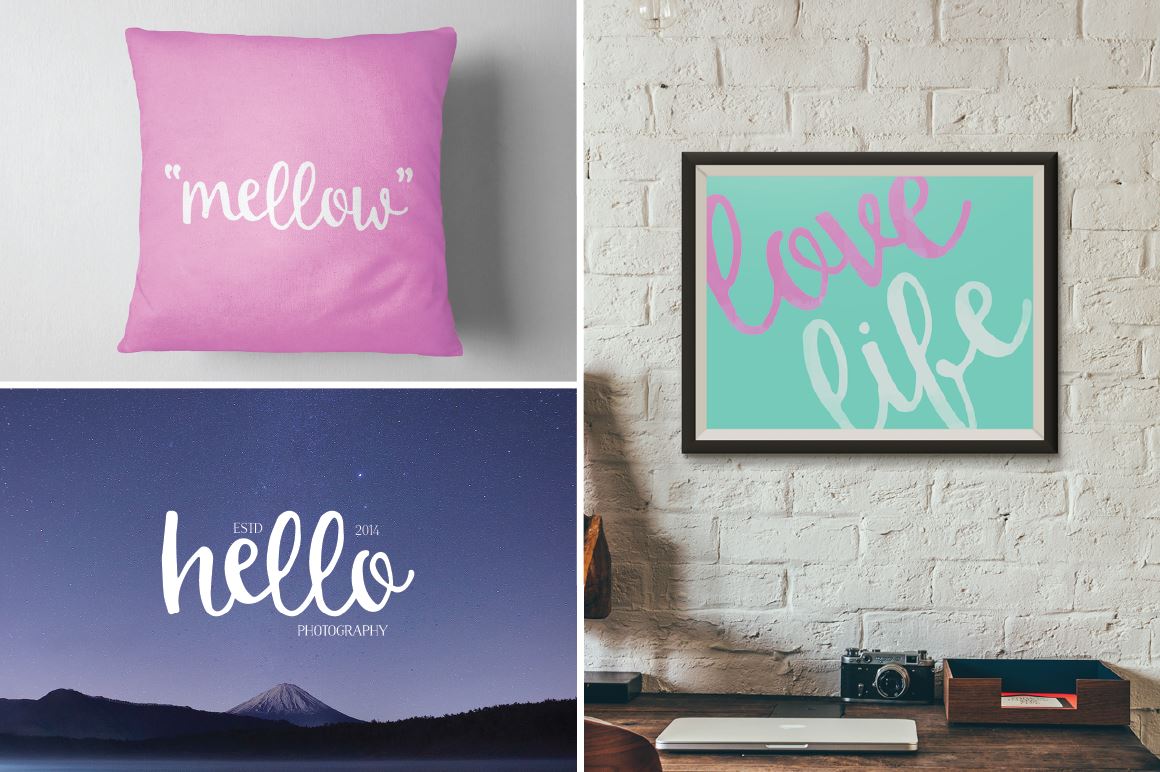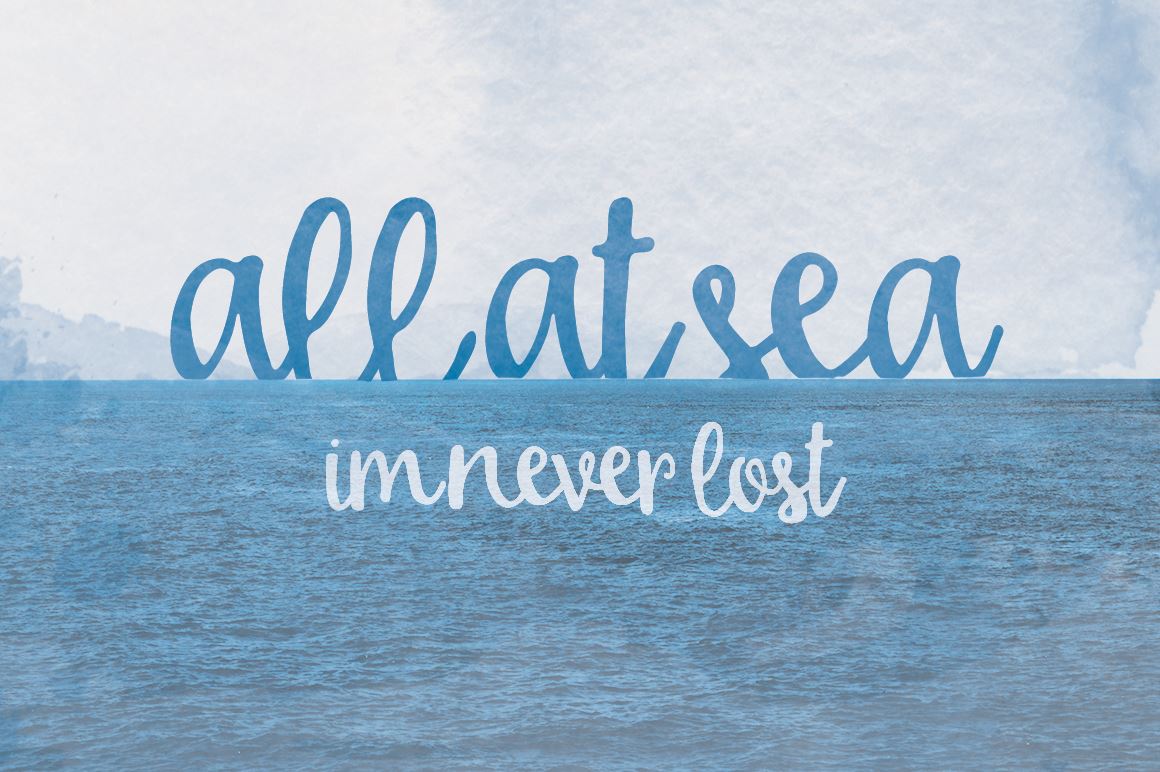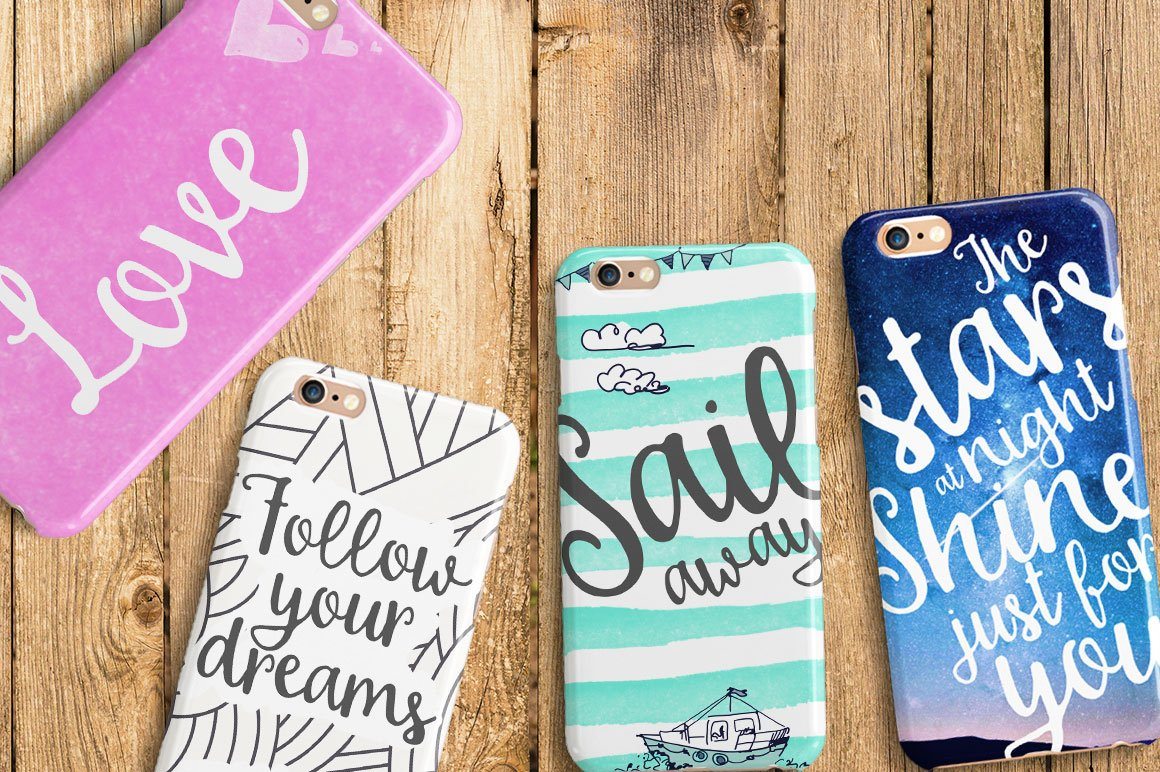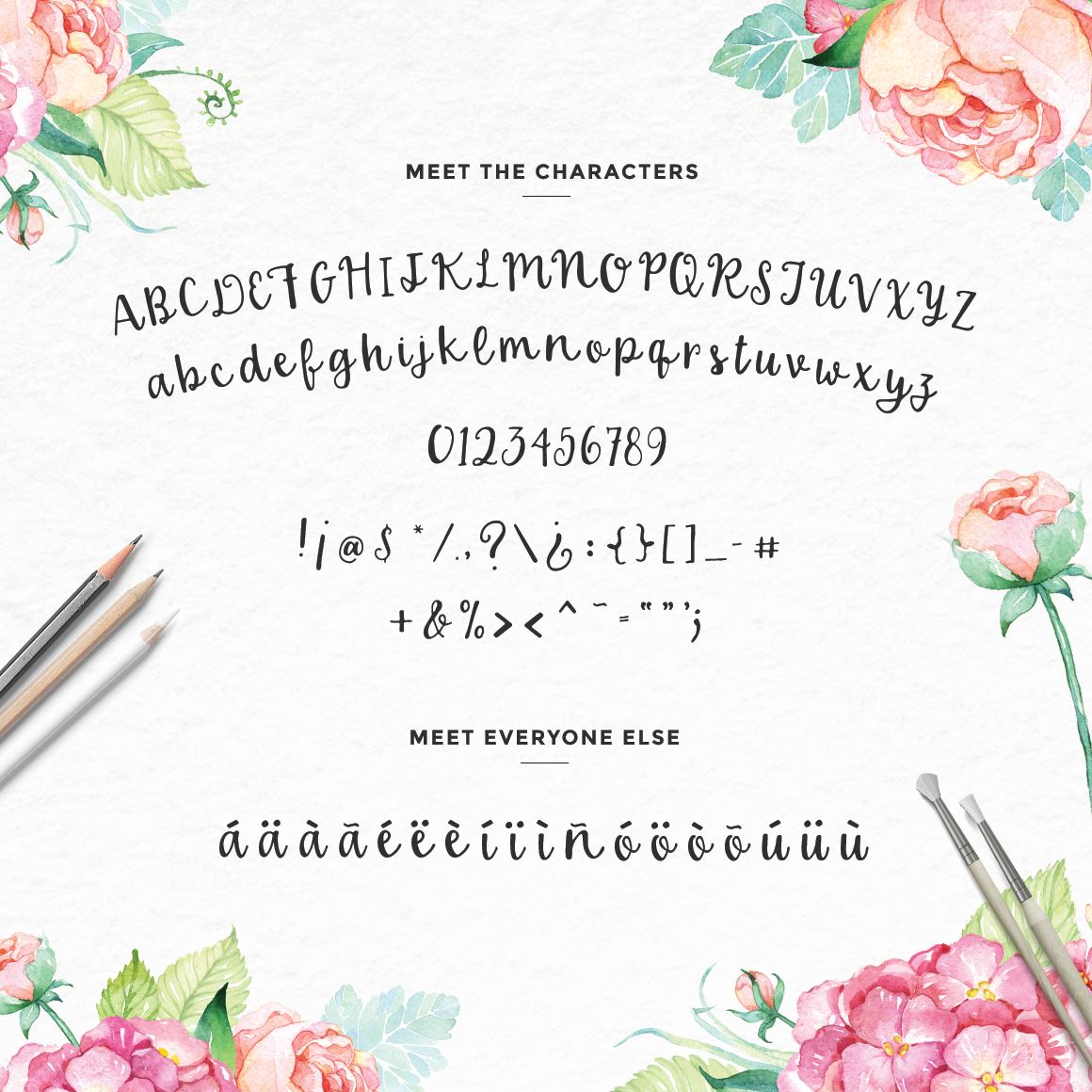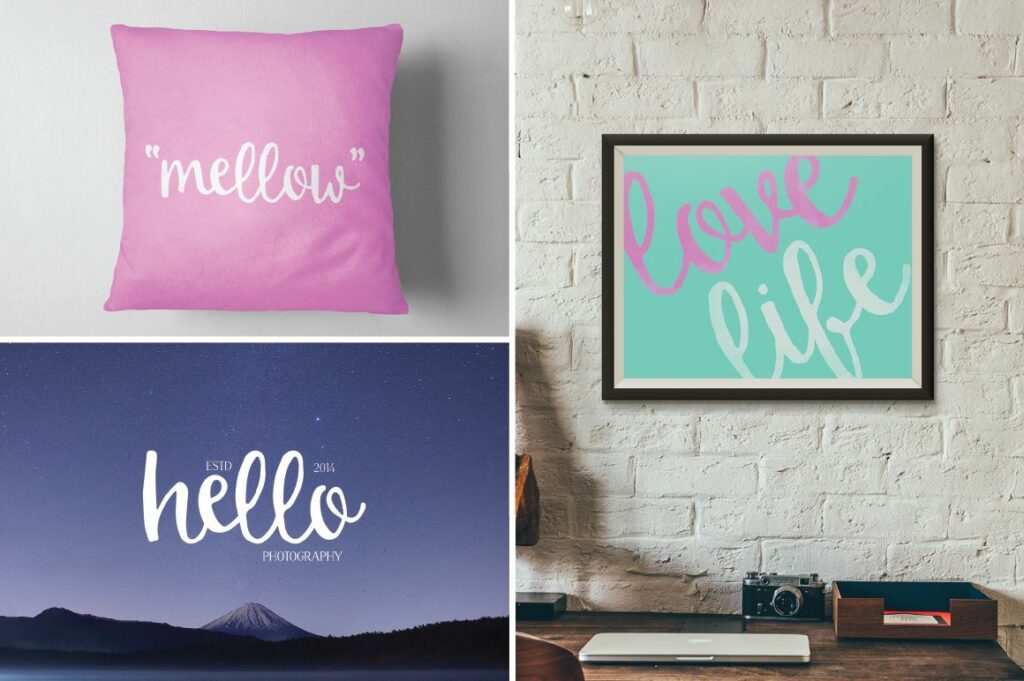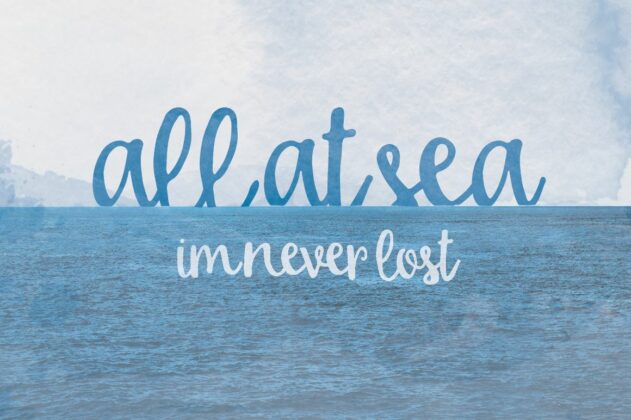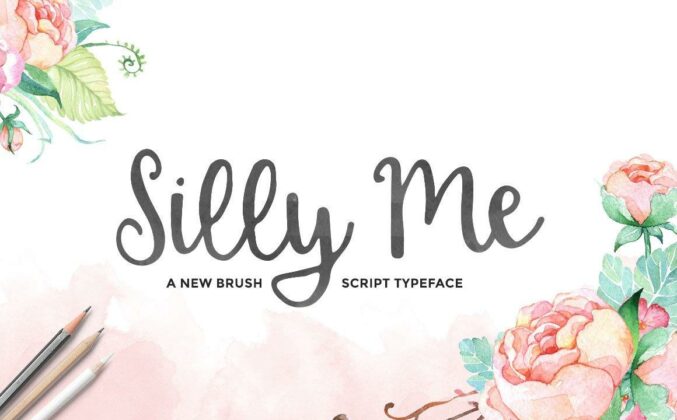
A Silly Me Script
About A Silly Me Script
Silly Me is a new hand painted brush script typeface. Available for both personal and commercial use. No extended license is required. Download and use the Silly Me Script for anything and everything (including on printed or craft items, that are subsequently sold on by you) Including over 115 different hand drawn characters for a range of languages and dialects. To see all glyphs included, please visit our preview images attached above. WHATS INCLUDED? Silly Me.otf & Silly Me.ttf Web fonts included (EOT, SVG, WOFF & WOFF2 Files) Little Mr Fox Illustration (2000 x 2000 PNG) & Pattern (PNG & AI) Oh Deer Me Illustration (2000 x 2000 PNG) & Pattern (PNG & AI) Billy Bunny Illustration (2000 x 2000 PNG) & Pattern (PNG & AI) Ruby Raspberry (2000 x 2000 PNG) & Pattern (PNG & AI) 24 Watercolor Backgrounds (2500 x 2500 PNG) Download within a few clicks and use across a huge range of programs including Photoshop, InDesign, Illustrator and Microsoft Word as well as many more. There are no Open Type Features included in this font, meaning all characters can be used across on any programs that support fonts. Not sure how to install a font? No problem. We have included a free installation guide explaining how to install our font on both a windows PC or MAC. Please note the mock ups used above are not included. If you have any questions or problems, please don’t hesitate to message me.